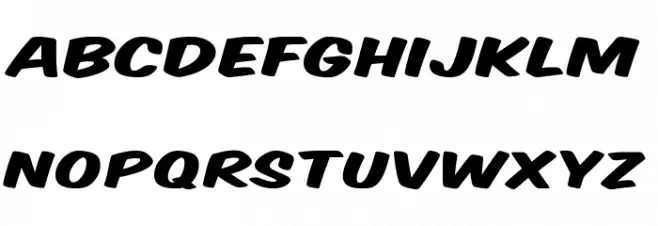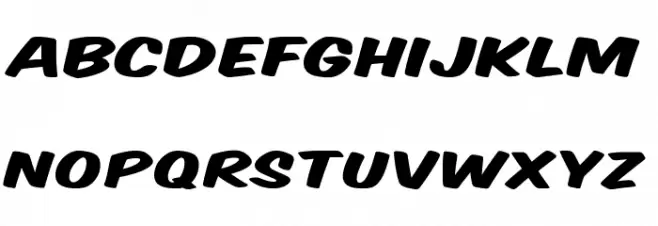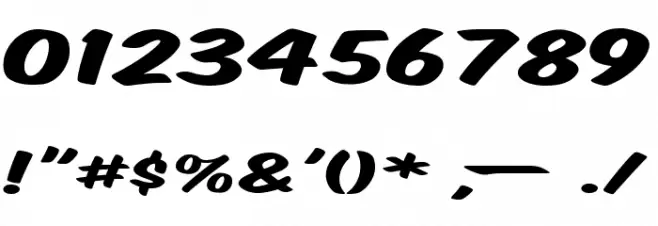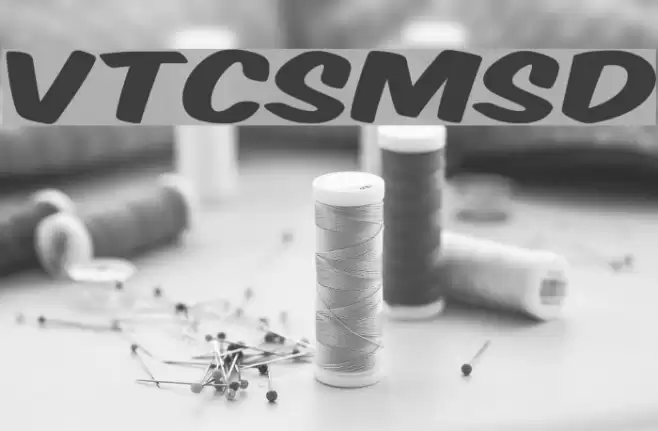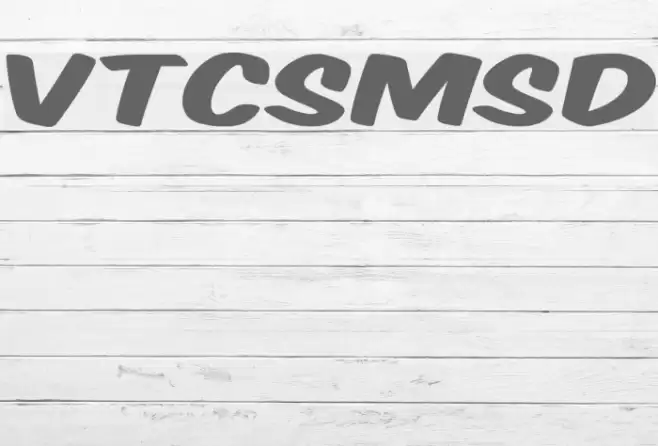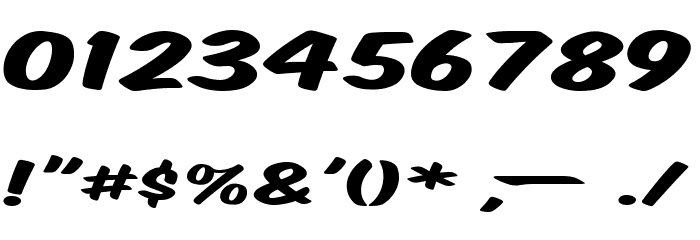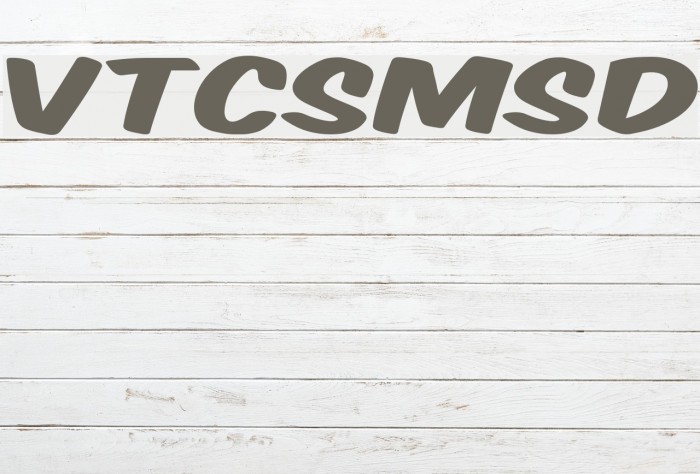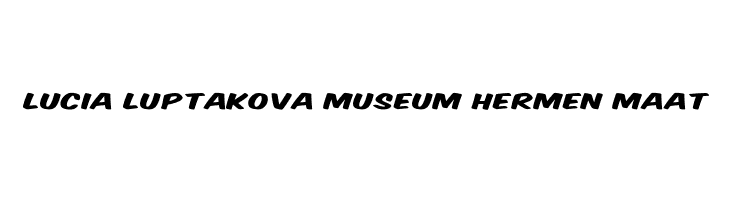
VTCSuperMarketSaleDisplay
This font features a bold and dynamic style with a strong presence, characterized by its thick strokes and slightly italicized form. The letters are rounded and smooth, giving a sense of motion and energy. The uppercase and lowercase letters maintain a consistent style, with the lowercase being slightly more compact. Numbers are equally bold and follow the same energetic style, making them stand out. The special characters are well-integrated, maintaining the overall aesthetic. This font is ideal for creating eye-catching headlines or promotional materials where a sense of urgency or excitement is desired.
A bold, dynamic font with rounded, slightly italicized letters and strong presence.
- Proposed Projects: Ideal for promotional materials, advertisements, and headlines that require a bold and energetic look.
- Use Case: Headlines, Promotional materials